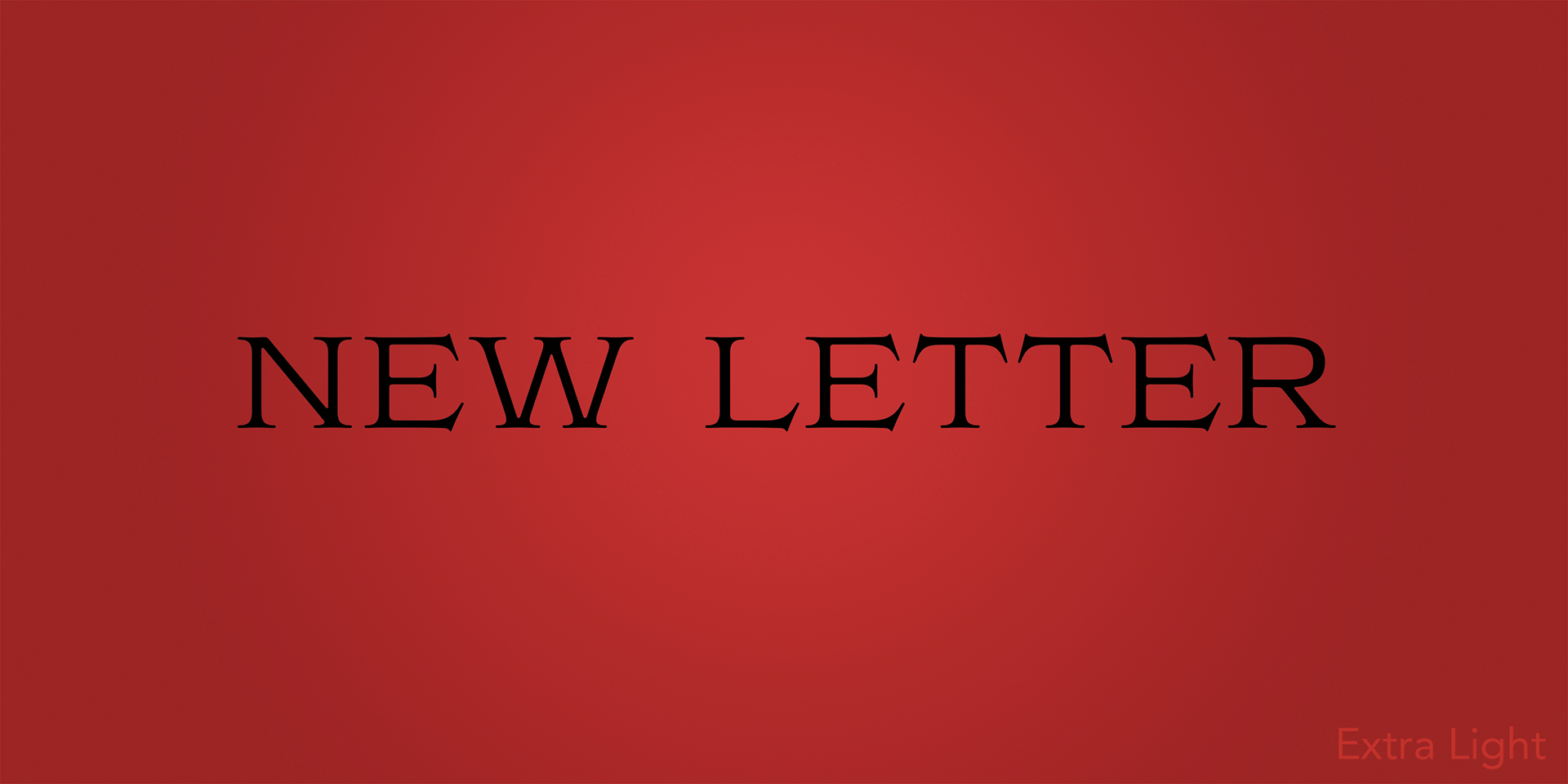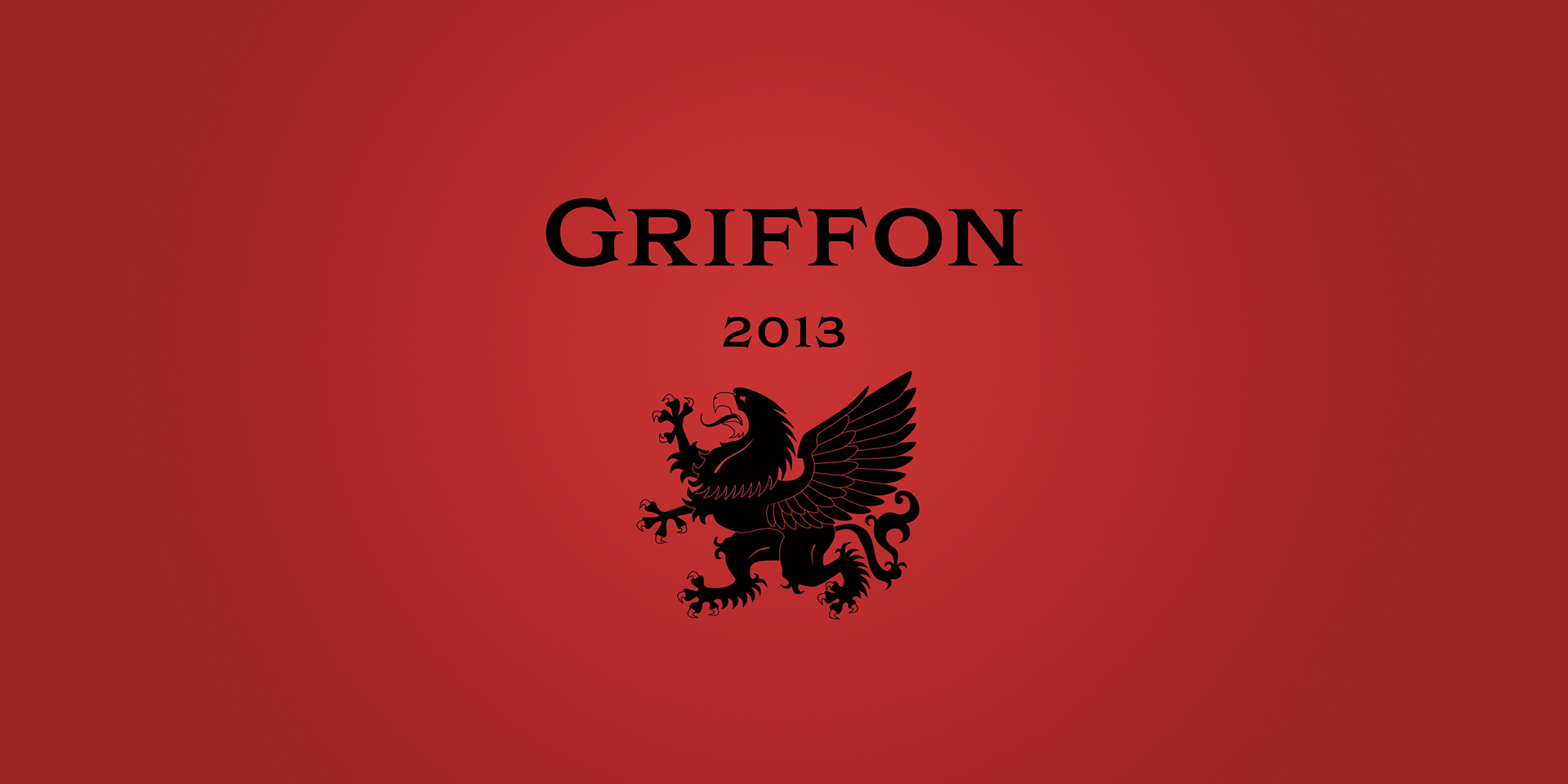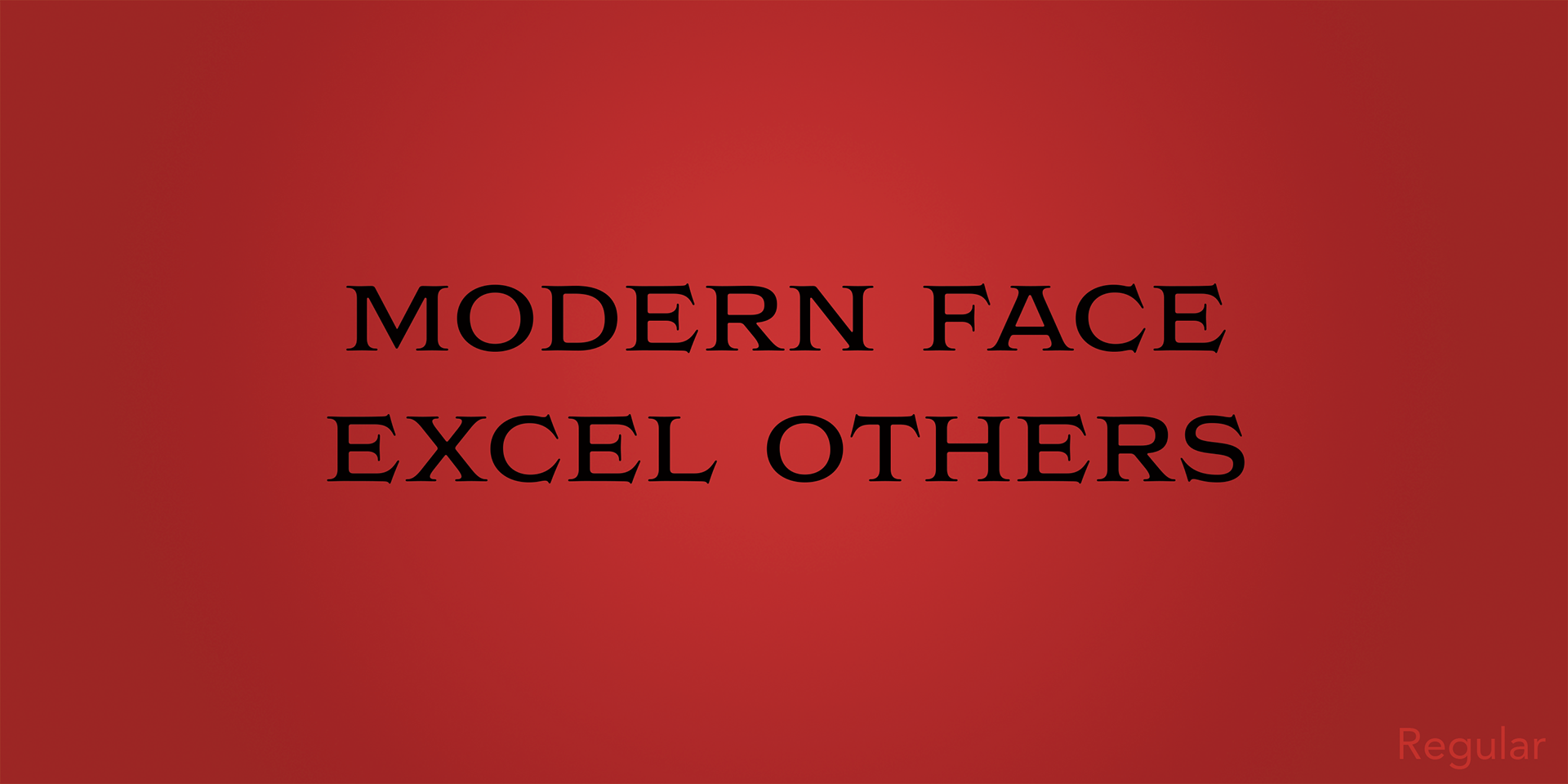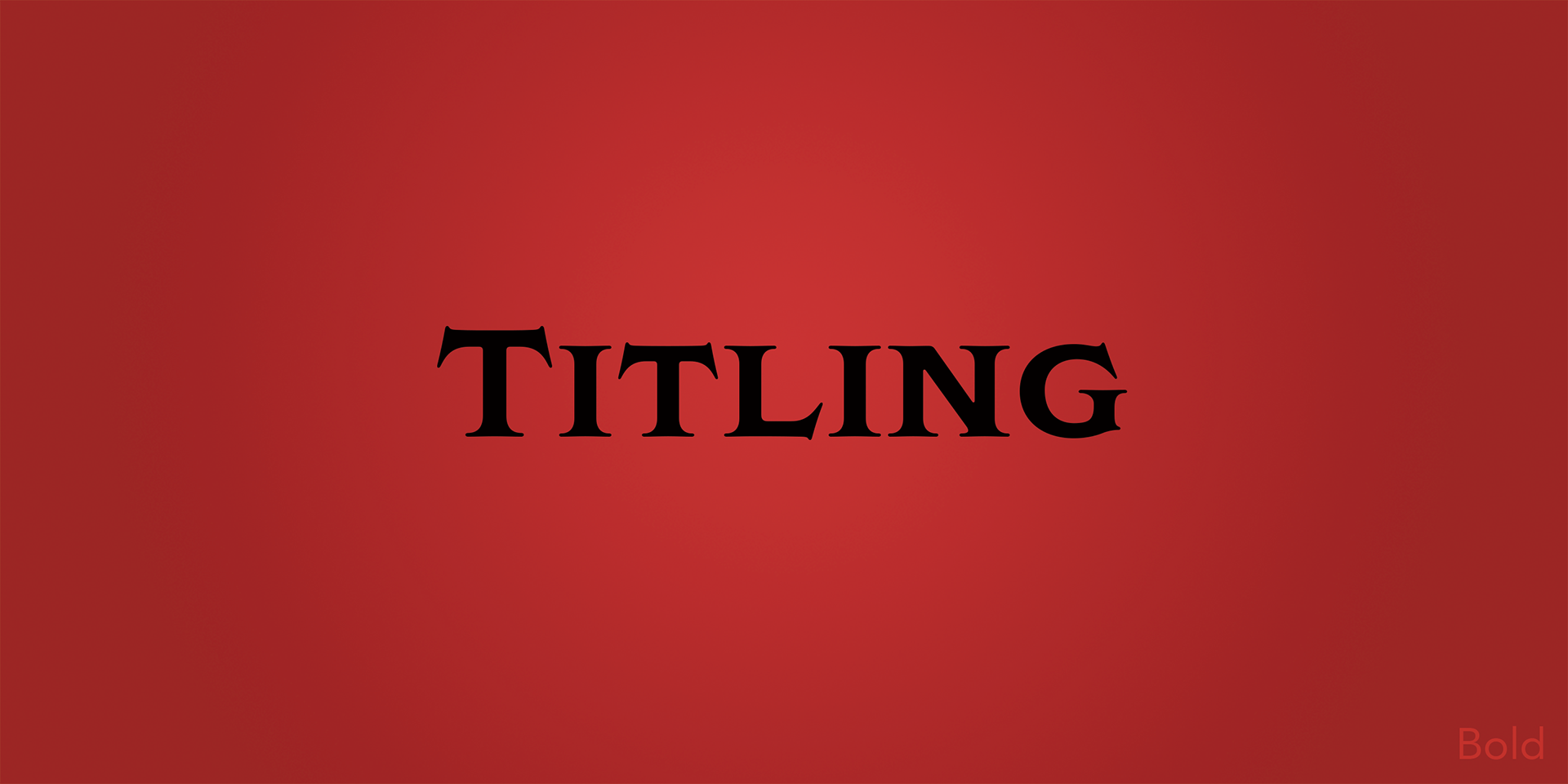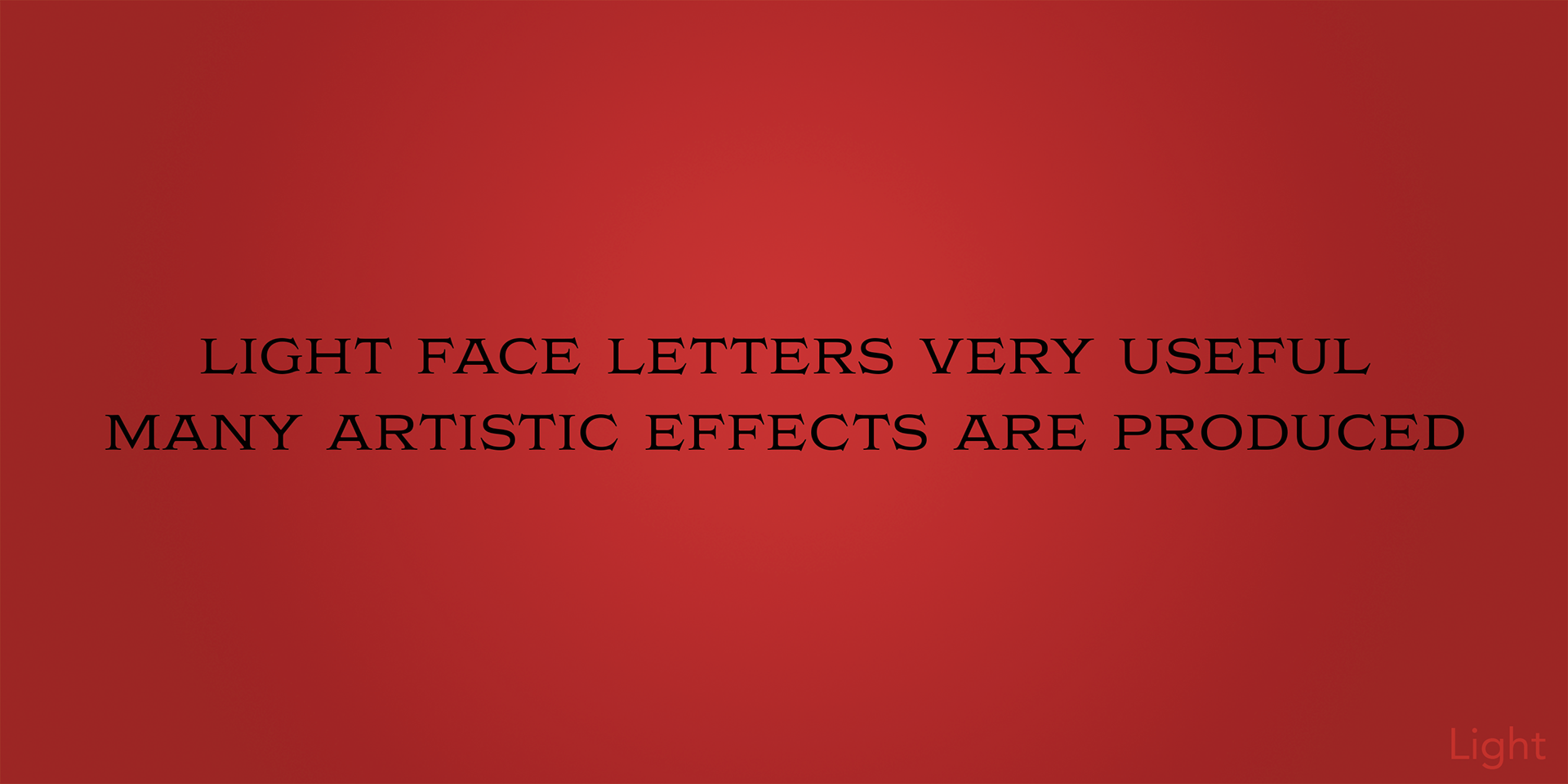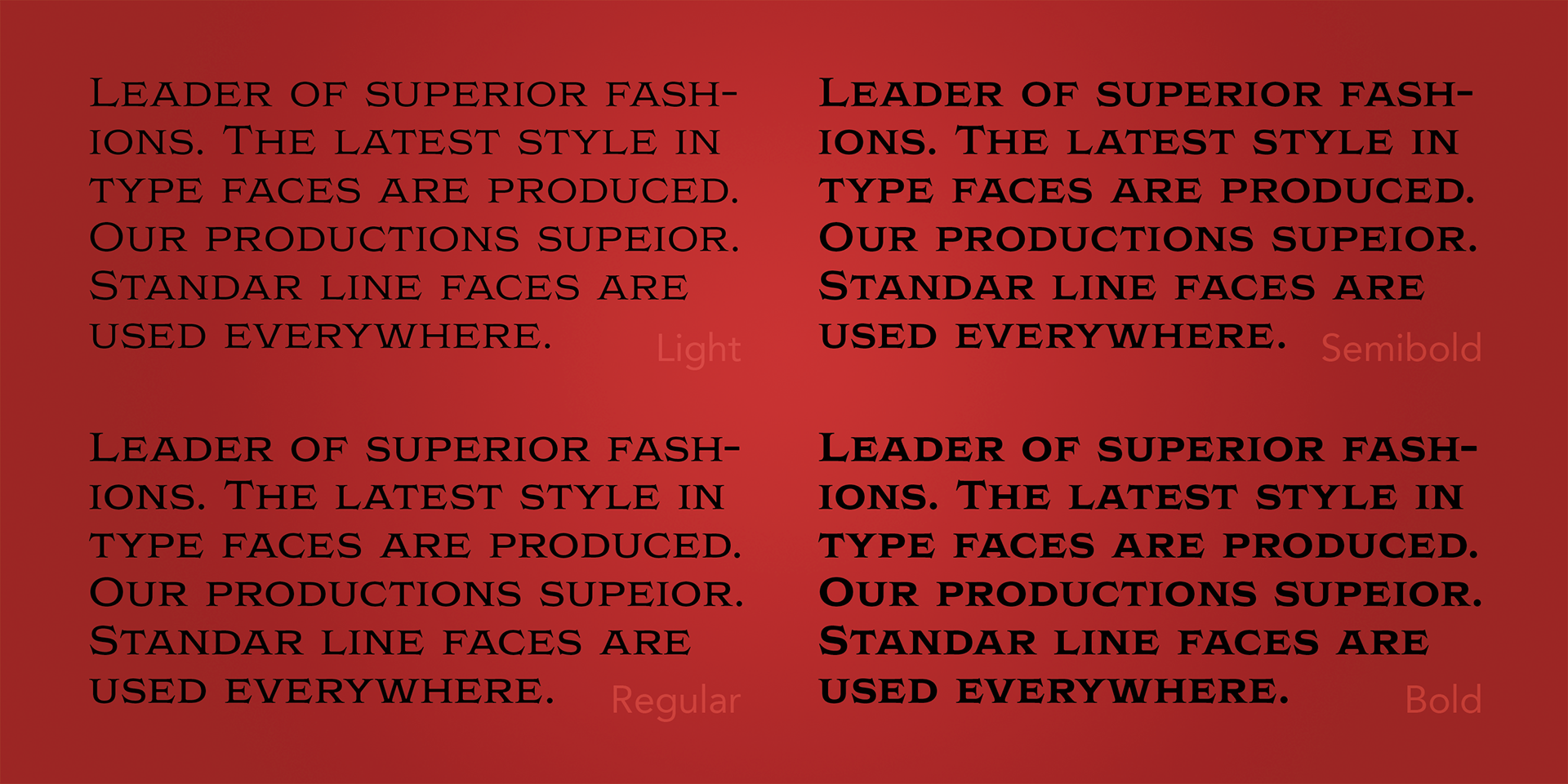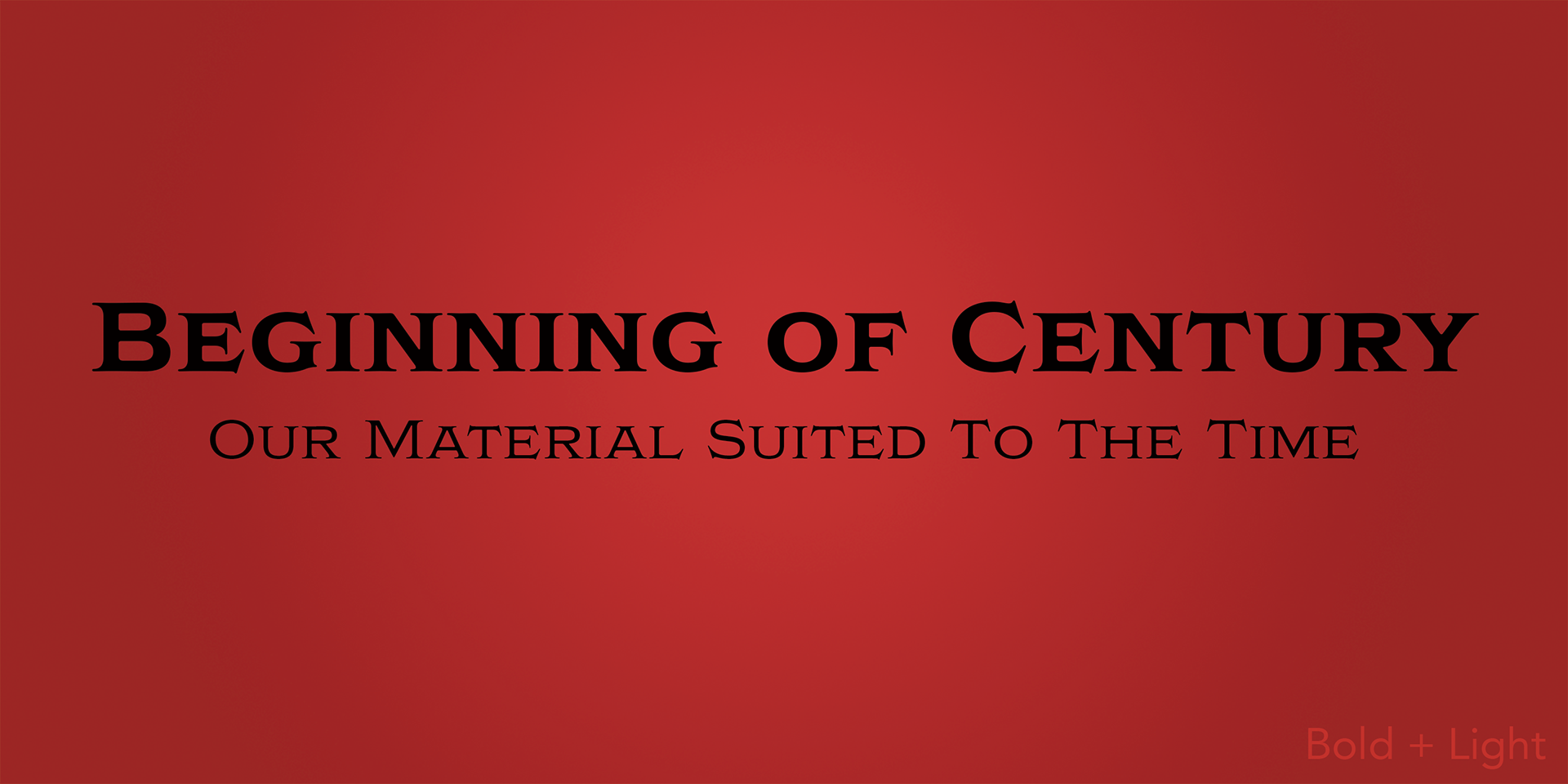
Griffon
Griffon is a titling serif typeface influenced by classic letterforms and inspired by retro typefaces from the early 20th century.
Completely redesigned from scratch, the family now includes 5 weights, from Light to Bold, each featuring small caps for refined typographic control.
With its powerful, elegant letterforms, Griffon delivers a bold visual impact—ideal for headlines, titles, and branding.
Try this handsome serif that evokes the charm and sophistication of design from a century ago.